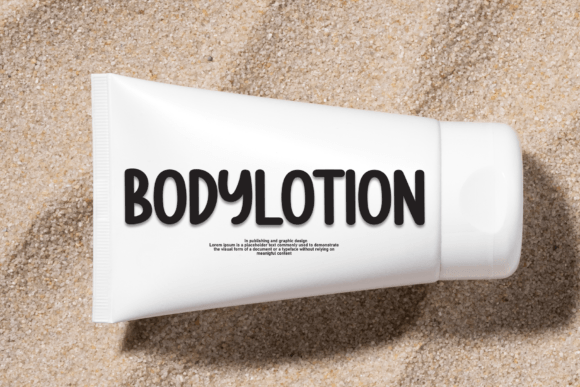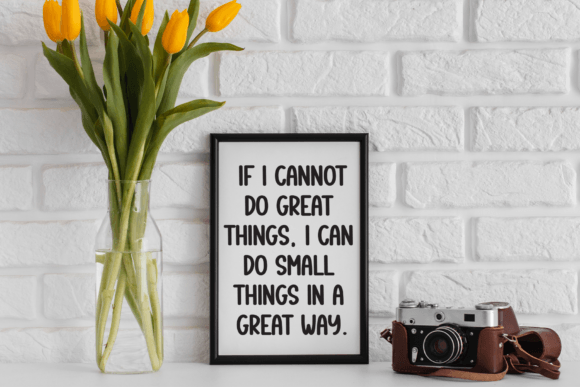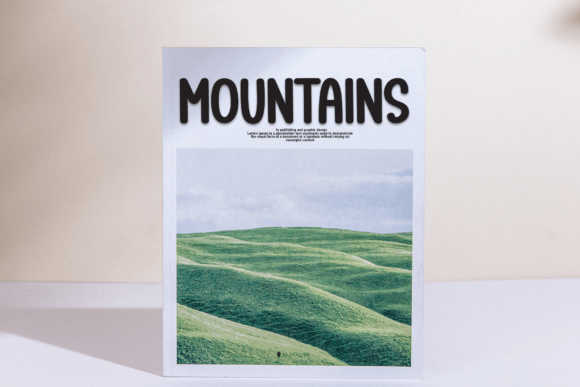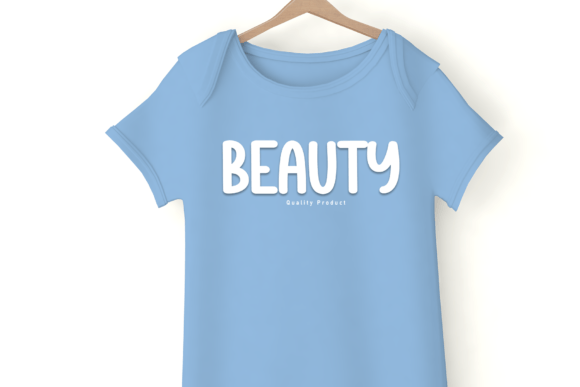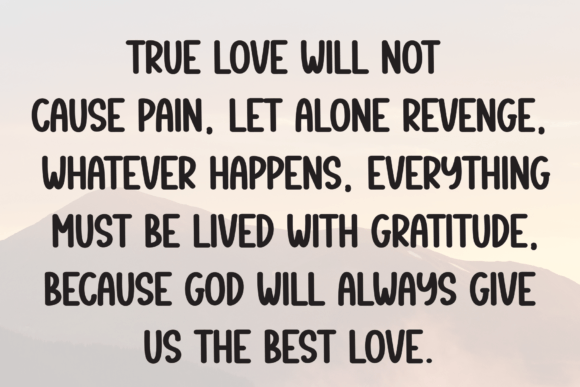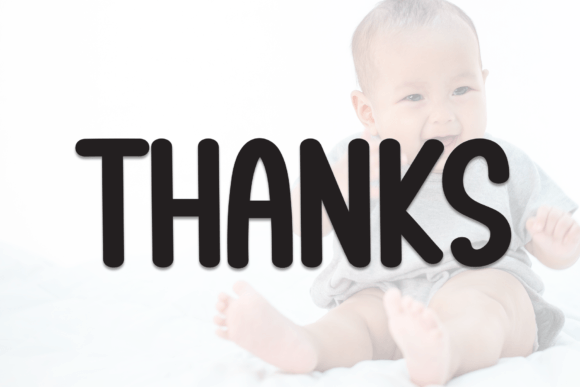
Baby Font: The Sweet and Friendly Handwritten Font for Your Designs
Baby Font is a delightful and charming handwritten font that is perfect for adding a touch of sweetness and friendliness to your designs. With its cute and fun style, this font is ideal for writing wedding invitations, cards, or any other design that might need a playful and whimsical touch. In this article, we’ll explore the features and benefits of Baby Font, and how it can elevate your designs to the next level.
What is Baby Font?
Baby Font is a carefully crafted handwritten font that exudes warmth and friendliness. Its unique and distinctive style is characterized by soft, rounded edges and a playful flair, making it perfect for designs that require a personal and approachable feel. Whether you’re creating wedding invitations, birthday cards, or social media graphics, Baby Font is sure to add a touch of sweetness and charm to your designs.
Features of Baby Font
- Cute and Fun Style: Baby Font has a playful and whimsical style that is sure to capture the attention of your audience.
- Handwritten Look: The font has a natural, handwritten look that adds a personal touch to your designs.
- Soft and Rounded Edges: The font’s soft and rounded edges give it a friendly and approachable feel.
- Perfect for Wedding Invitations and Cards: Baby Font is ideal for writing wedding invitations, cards, and other designs that require a touch of elegance and sophistication.
Benefits of Using Baby Font
Using Baby Font in your designs can have numerous benefits. Here are a few:
- Adds a Personal Touch: Baby Font’s handwritten look and feel add a personal touch to your designs, making them more relatable and engaging.
- Creates a Whimsical Atmosphere: The font’s playful and whimsical style creates a fun and lively atmosphere, perfect for designs that require a touch of humor and personality.
- Perfect for Branding and Marketing: Baby Font can be used in branding and marketing materials to create a friendly and approachable image.
- Easy to Read and Understand: The font is easy to read and understand, making it perfect for designs that require clear and concise communication.
How to Use Baby Font in Your Designs
Using Baby Font in your designs is easy and straightforward. Here are a few tips:
- Pair it with Other Fonts: Baby Font can be paired with other fonts to create a unique and visually appealing combination.
- Use it for Headings and Titles: The font is perfect for headings and titles, adding a touch of elegance and sophistication to your designs.
- Add it to Your Social Media Graphics: Baby Font can be used in social media graphics to create a friendly and approachable image.
- Experiment with Different Colors and Textures: The font can be used with different colors and textures to create a unique and eye-catching design.
In conclusion, Baby Font is a sweet and friendly handwritten font that is perfect for adding a touch of whimsy and playfulness to your designs. With its cute and fun style, soft and rounded edges, and handwritten look, this font is ideal for writing wedding invitations, cards, or any other design that might need a fun touch. Whether you’re a designer, crafter, or DIY enthusiast, Baby Font is sure to become a favorite in your font collection.